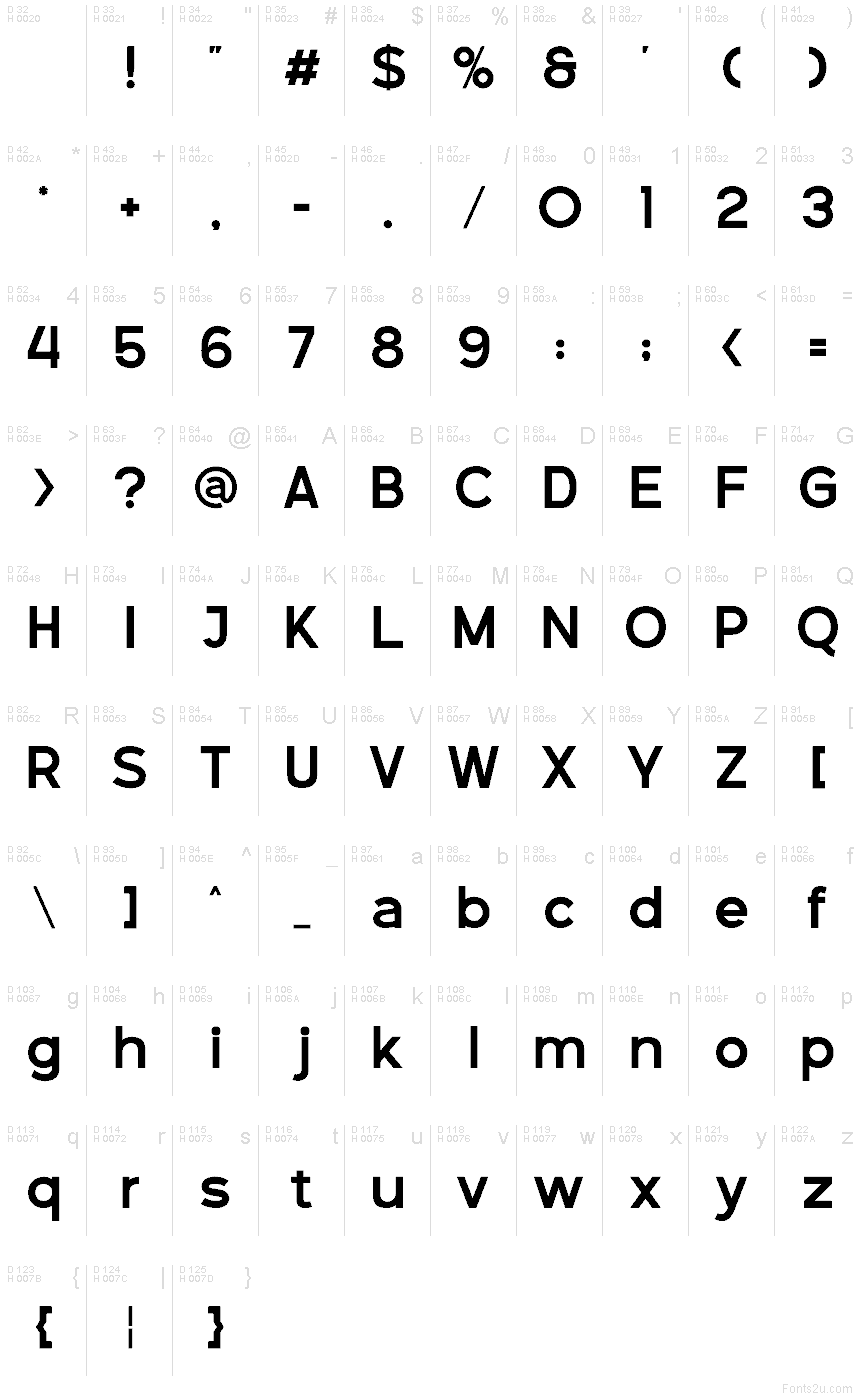
Golant font by Ermedia Studio is a free modern sans serif font. It solves that familiar brief: something bold enough for headlines, but friendly enough for brands. Thick, even strokes and soft corners give it a sturdy, approachable feel, while open counters and a compact rhythm keep text crisp on screens and signage alike.
Using Golant, you get clean impact without coldness-great for branding, tech landing pages, posters, packaging, wayfinding, social graphics, and app tabs. This free font holds weight at large sizes and stays legible when scaled down. Pair it with a light grotesk for body copy, or increase tracking slightly for airy, high-contrast layouts.